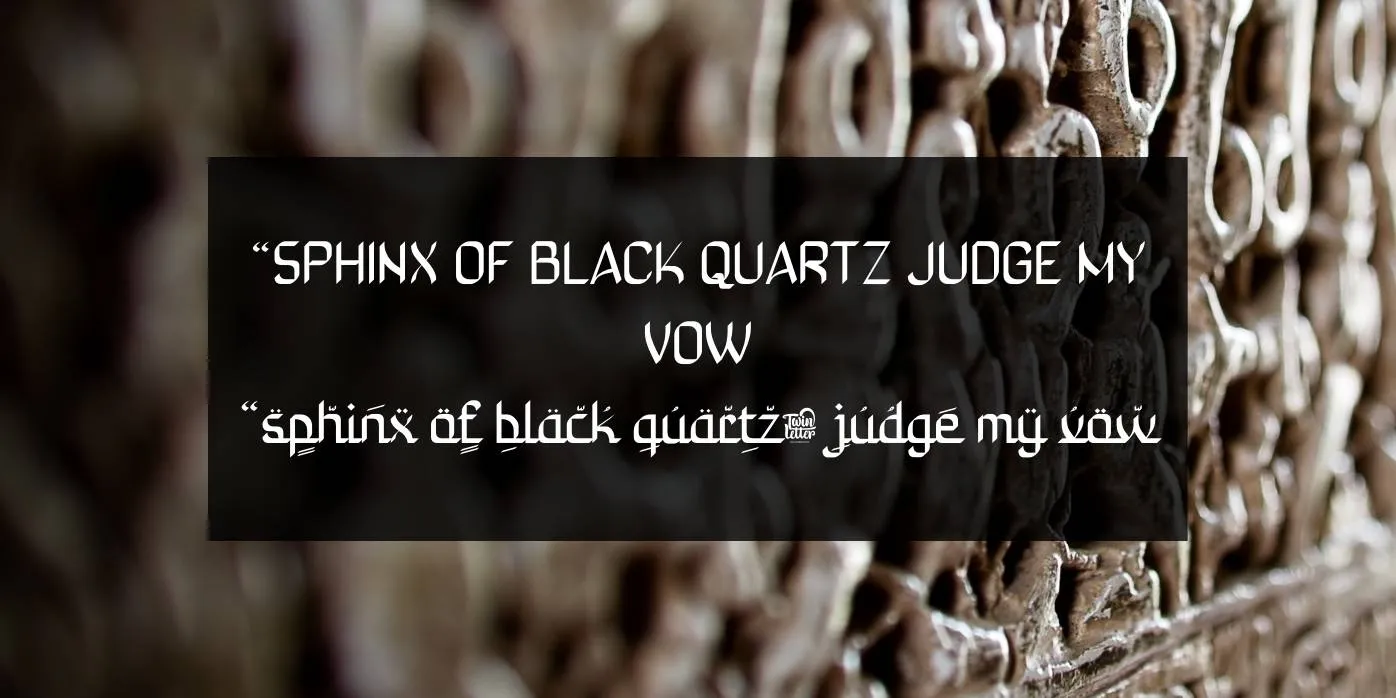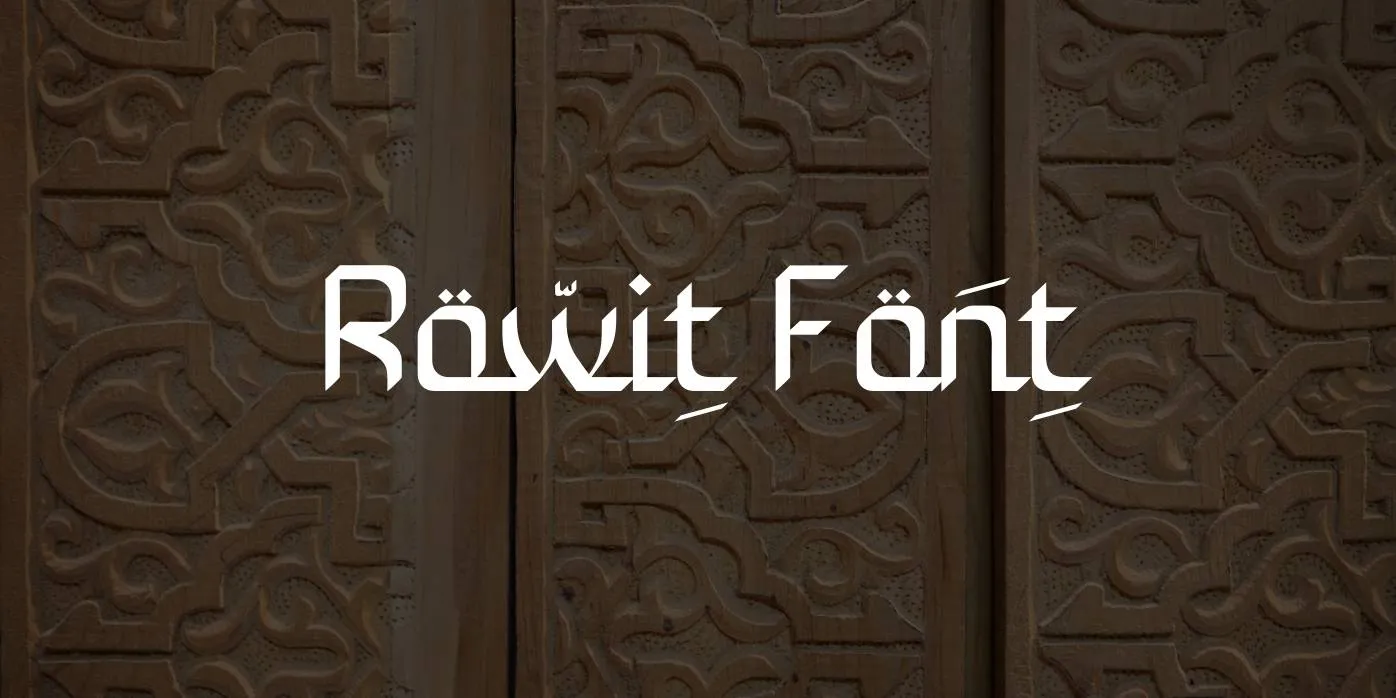
Rowit Font
In this post, we present a classy font family that is known by the name Rowit Font. This typeface belongs to the Arabic font family. And It has available in three different styles including Regular, Bold, and Light. This awesome font is an Arabic typeface that was designed with twinletter.
The aim of designing this font family was to provide a clean and elegant typeface for the designers. This font family is perfect for both body text and headlines. Rowit Font supports a wide range of languages including Arabic, English, Persian, Urdu, and more. You can use the Dubai font which has the same style and characters like this one.
This font family comes in three different styles which are Regular, Bold, and Light. All of these styles come with a unique set of glyphs and characters. This gorgeous font also supports multiple weights and it can be used for both web and print projects.